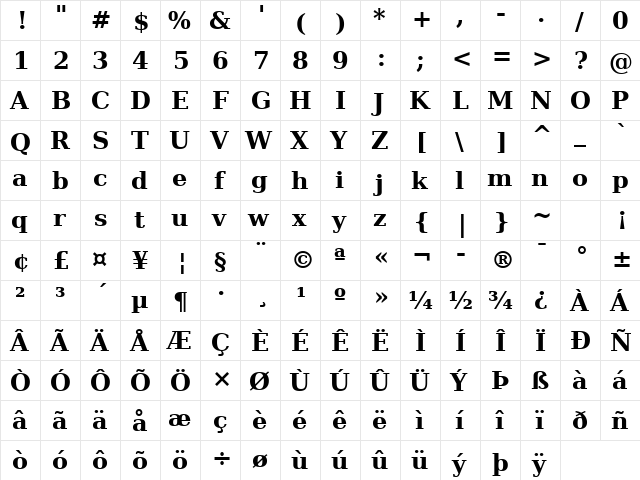
ae_Rasheeq Bold
| Foundry | MAK Alagha |
| Designer | Regenerated by Nadim Shaikli |
Design Context for ae_Rasheeq Typeface
ae_Rasheeq is a composed and adaptable typeface that performs quietly and consistently across a wide range of design contexts. The heavy weight commands attention and anchors typographic hierarchies.